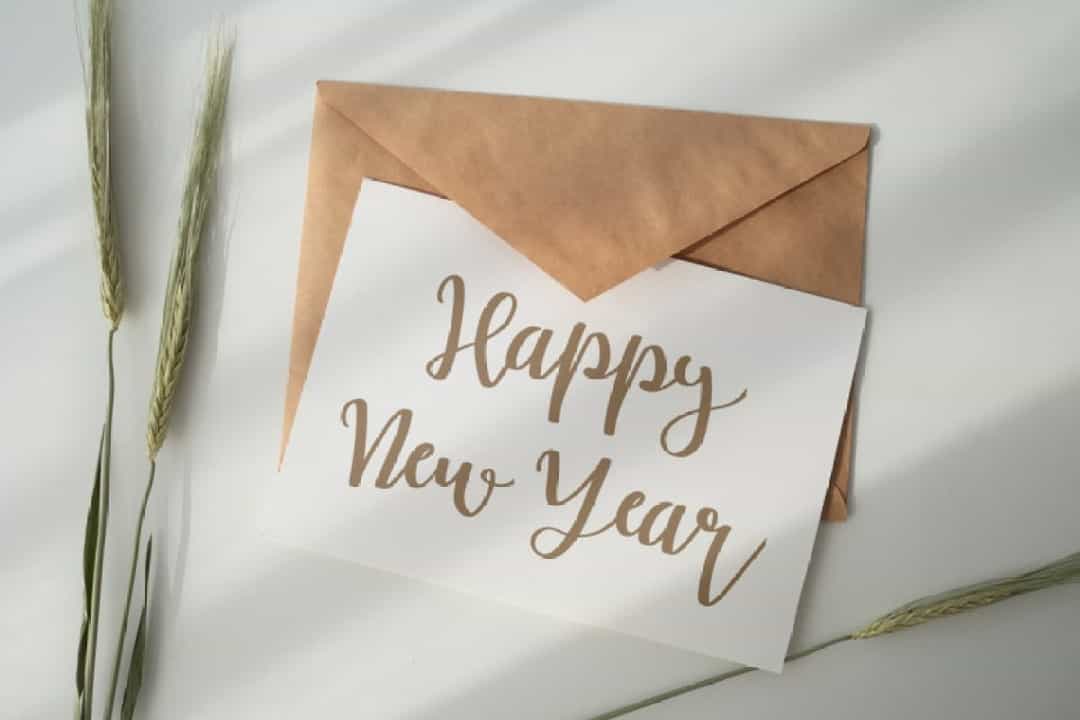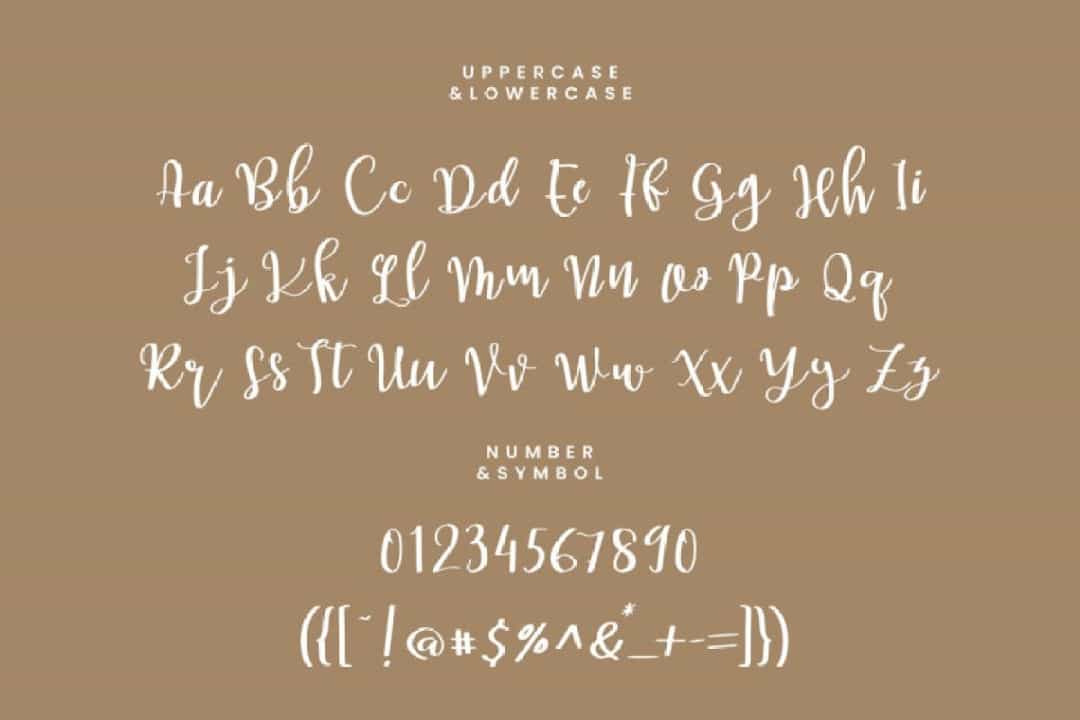
Besties is an authentic handwritten font that can be used for different brand activities and any kind of businesses. Lauding a clean look and the look of handwriting, Besties offers Modern Minimalist style design aesthetics.